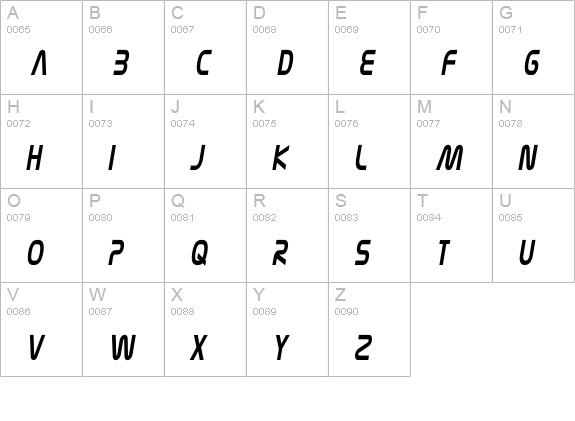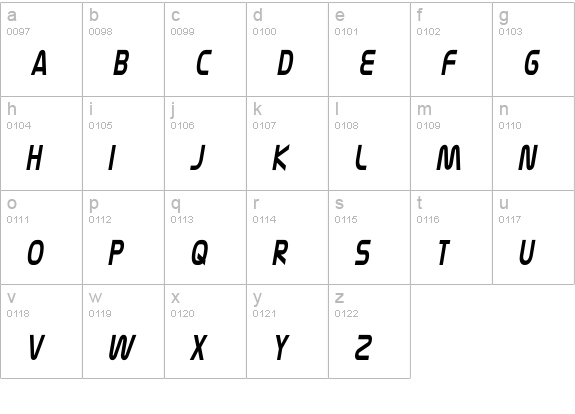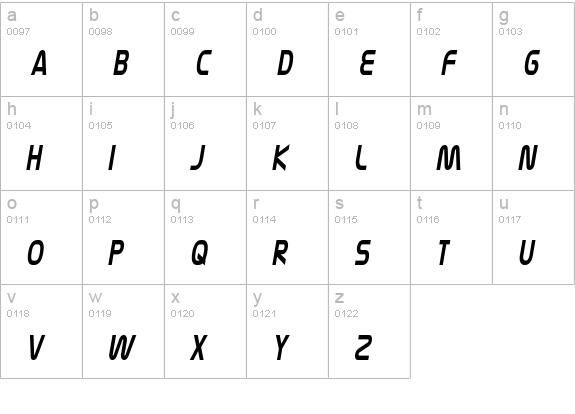
Nasalization Condensed Light Italic Font Details
Nasalization Condensed Light Italic is a refined, elegant, condensed-width, italic variant in the Nasalization typeface family \xE2\x80\x94 well suited to elegant body text, refined sub-headings, and luxury branding.
Nasalization Condensed Light Italic is a sleek and modern typeface designed for projects that require a touch of sophistication and elegance. This unique font features a clean and stylish appearance, making it perfect for a wide range of design applications. The italic style adds a hint of flair and dynamism to your text, making it stand out from the crowd. What's even better is that Nasalization Condensed Light Italic is available for free download at FontsMarket.com. This means you can easily access this stunning font and use it in your projects without any cost. Whether you're designing a website, creating a poster, or working on a branding project, Nasalization Condensed Light Italic is sure to elevate your designs and leave a lasting impression on your audience. Download it today and add a touch of sophistication to your work!